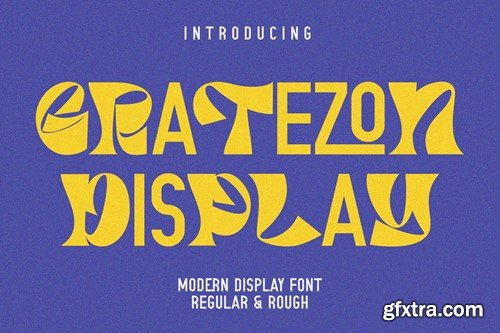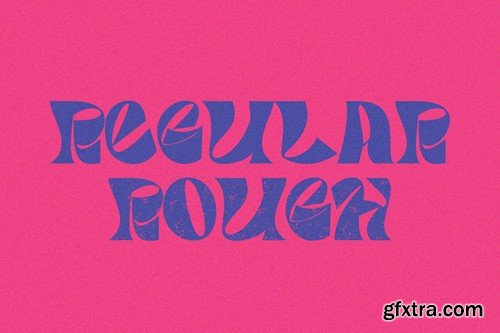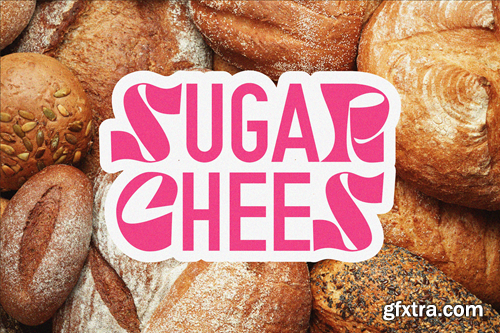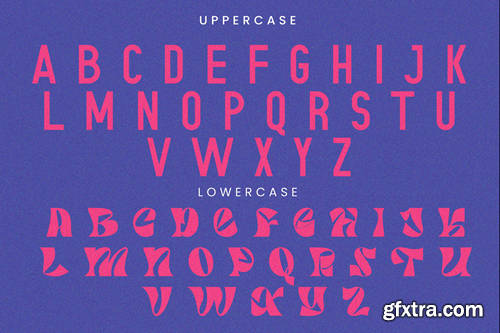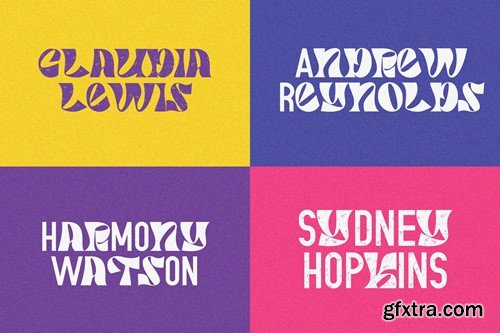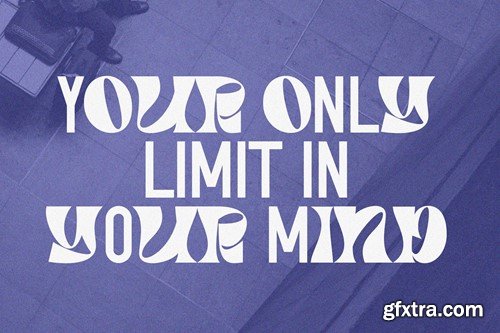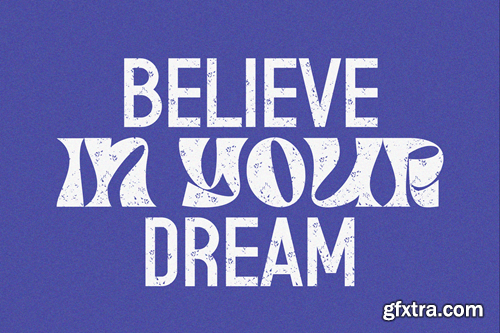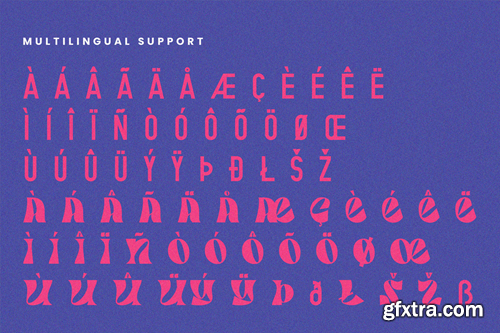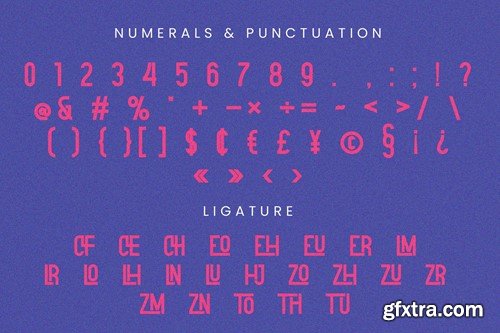
Gratezon - Modern Font DXDCP2K
Gratezon - Modern Font
Gratezon is a display font. It has a cool and playful look that can be used for logos, branding, invitations, stationery, wedding designs, social media posts, and so much more. Featuring the perfect amount of trendiness, this font will make your designs come to life.
Features :
• Ligature
• numbers and punctuation
• multilingual